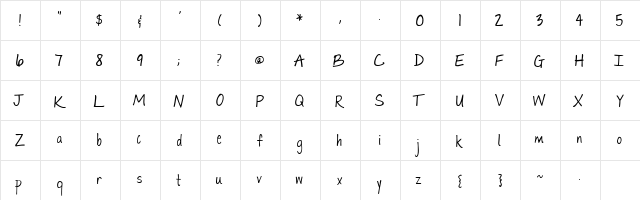
TKHoneyDo Regular
Design Context for TKHoneyDo Typeface
TKHoneyDo takes a measured approach to typography — its balanced proportions and neutral character make it a reliable workhorse for both digital and print work.